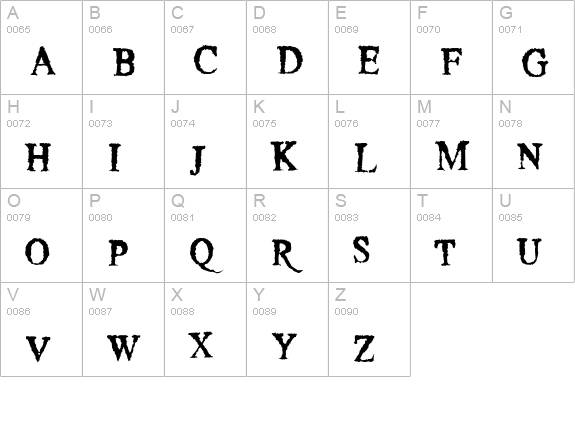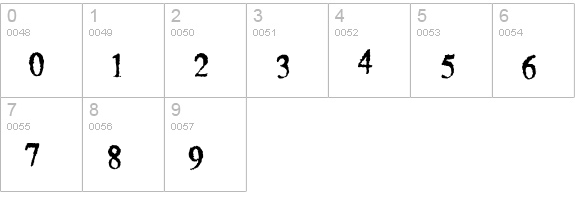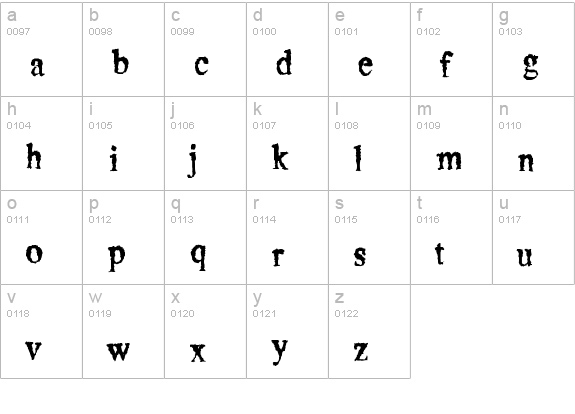
CrustiEr Font Details
Introducing CrustiEr font - a delightful and charming typeface that exudes a playful and whimsical vibe. This unique font features quirky, irregular lines and a hand-drawn appearance that adds character and personality to any design project. Perfect for adding a touch of fun and creativity to posters, invitations, branding, and more. What's even better is that CrustiEr font is available for free download at FontsMarket.com. Yes, you read that right - this charming font can be yours at no cost, allowing you to unleash your creativity without breaking the bank. Don't miss out on the opportunity to bring a touch of whimsy to your designs with the delightful CrustiEr font - download it now and let your imagination run wild!